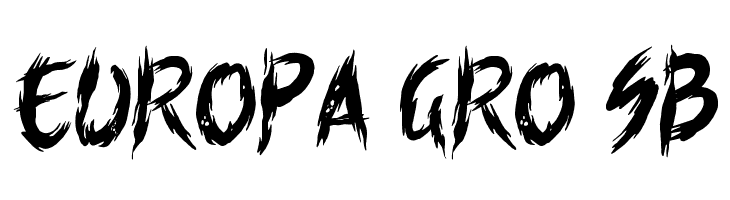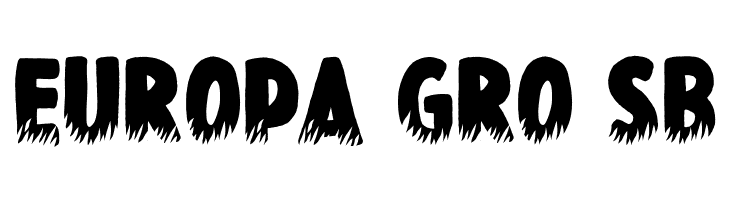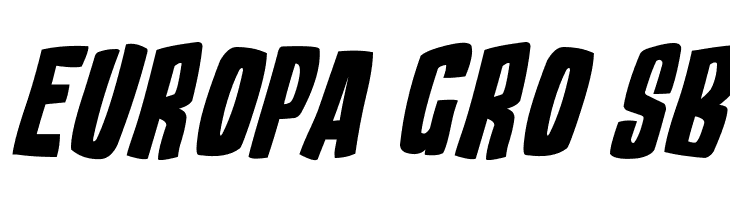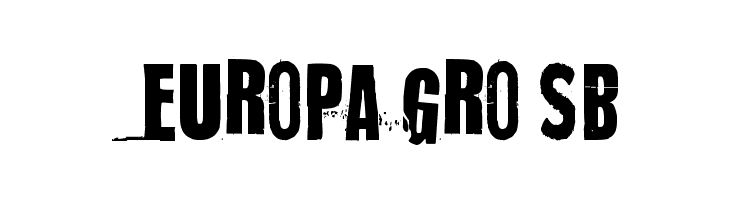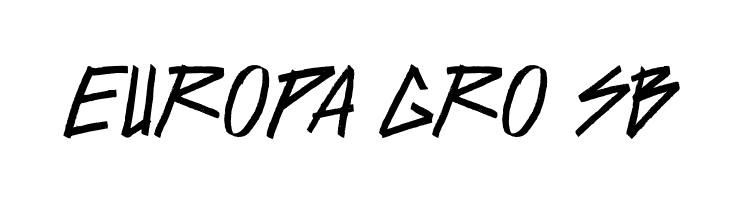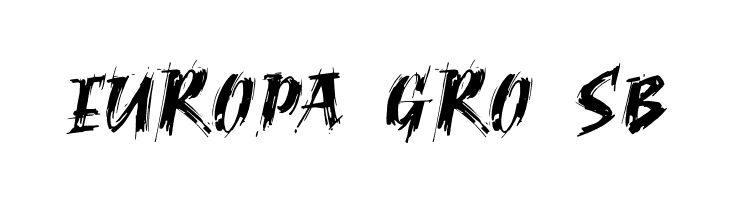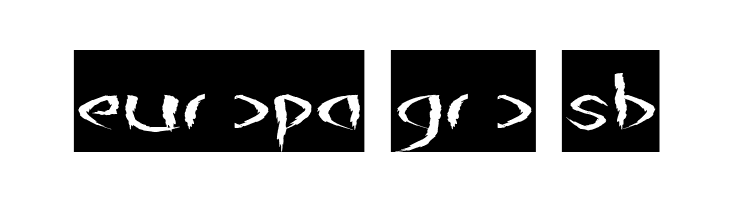
A bold, jagged font with a raw, energetic style, perfect for dramatic themes.
A bold, jagged font with a horror-themed, distressed aesthetic.
A bold, flame-inspired font with jagged edges and dynamic style.
A bold, energetic font with a fiery, dynamic design.
A bold, shadowy font with irregular, dramatic strokes.
A bold, jagged font with a horror-inspired, torn appearance.
A bold, distressed font with a grunge aesthetic and rugged texture.
An edgy, angular font with sharp, jagged lines and a rebellious feel.
A dynamic, brush-style font with bold, jagged strokes and an energetic appearance.
A bold, jagged font with sharp, irregular edges for a dramatic effect.